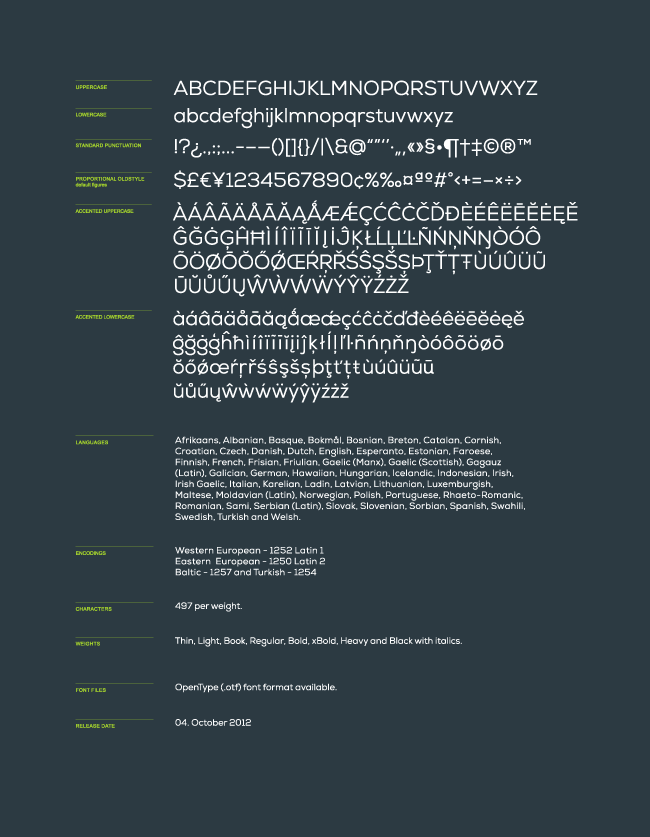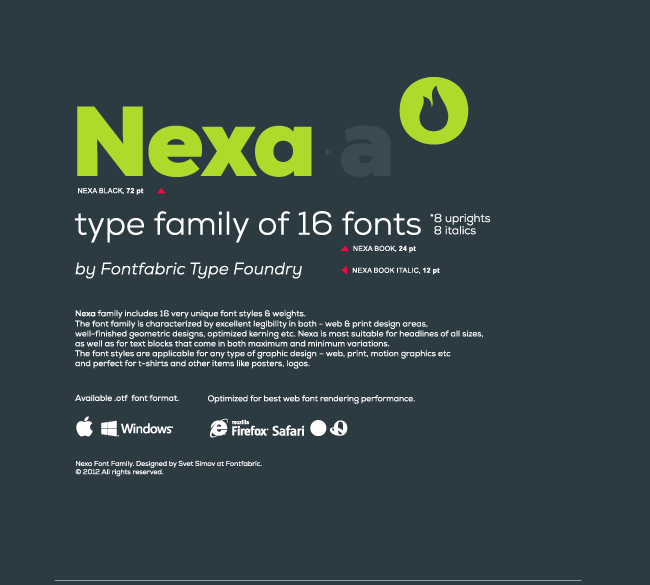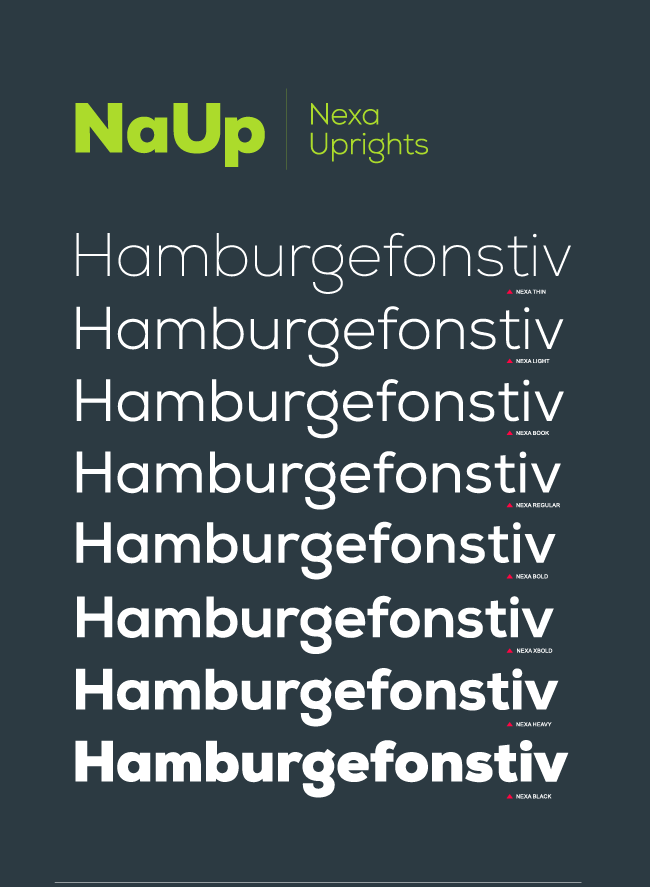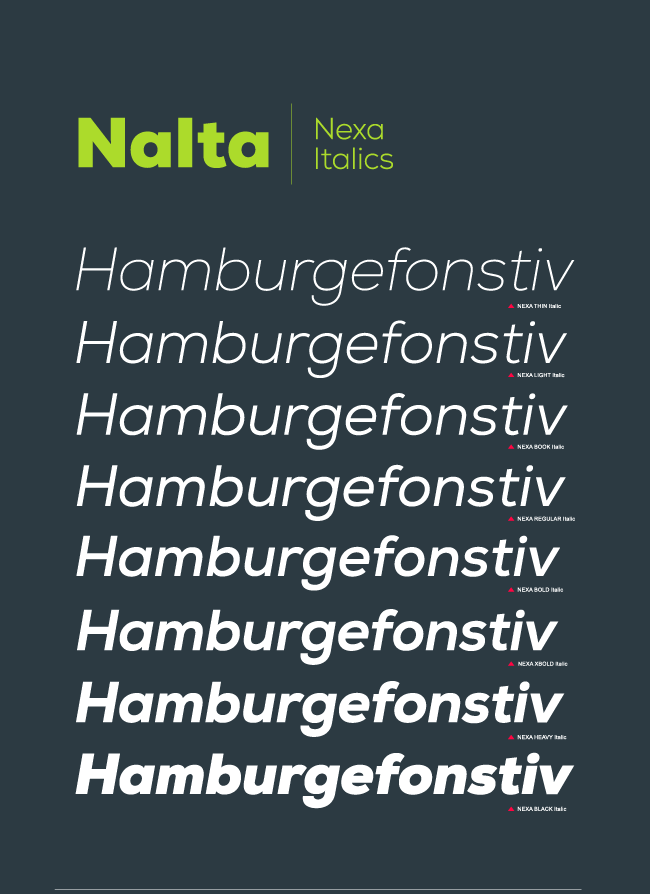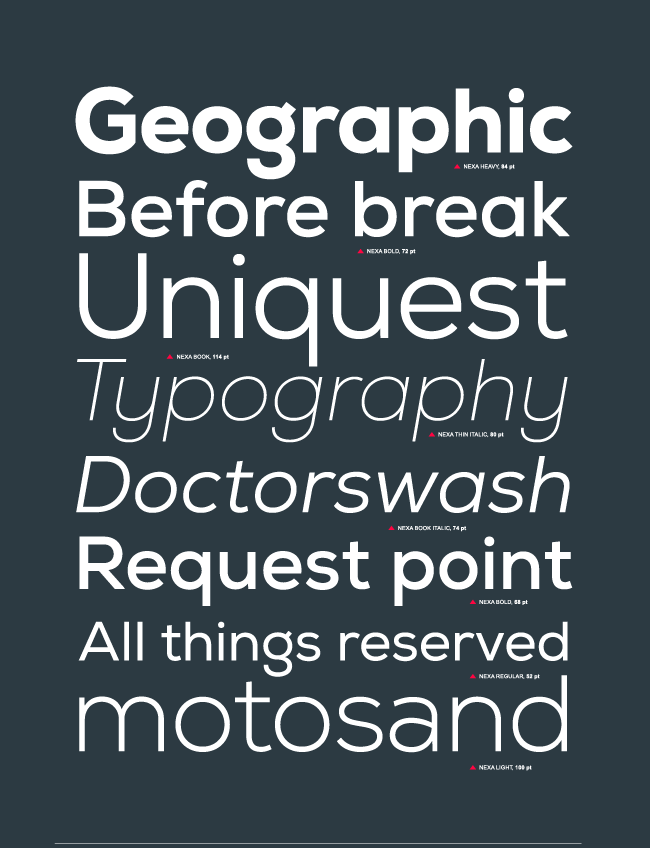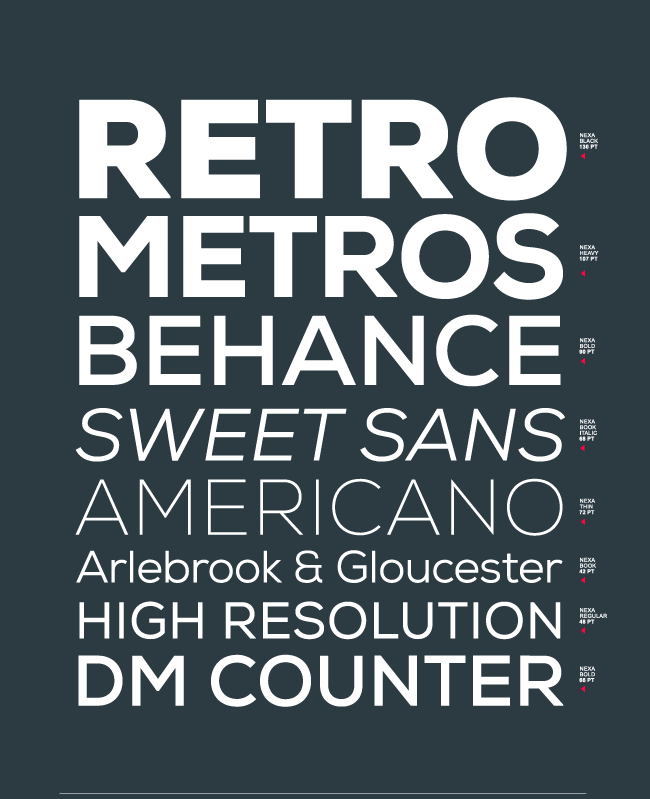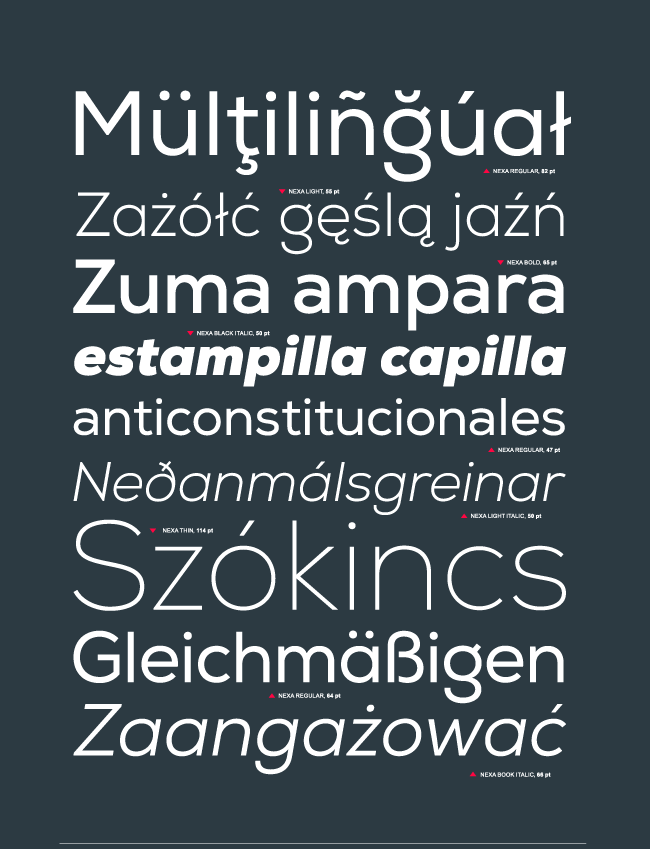
They say a picture's worth a thousand words. You've certainly heard that phrase before. But what if your picture is a word? Yeah, we're talking about fonts. The typeface you choose for your next project could mean the difference between generating excitement and putting your audience to sleep.
If you're sick of using the same old fonts and really want something new and fresh, take a look at this font-tastic Mighty Deal. It's the complete collection (all 16 weights) of the Nexa font family!
Nexa Font Family Highlights:
- 16 Styles & Weights
The entire Nexa Font Family includes eight upright style fonts and eight italic fonts. That's a total of 16 styles based off of the Nexa font. Weights include: Thin, Light, Book, Regular, Bold, xBold, Heavy, and Black with Italics. - Professional Font
What makes Nexa such a powerful font is its excellent legibility for both Web and print. - Versatile Font
With a high legibility and optimized kerning, Nexa is perfect for headlines of all sizes and blocks of text that come in maximum and minimum variations. Use it for motion graphics on the Web, or a variety of popular print materials like T-shirts, posters or even logos. - Multiple Users